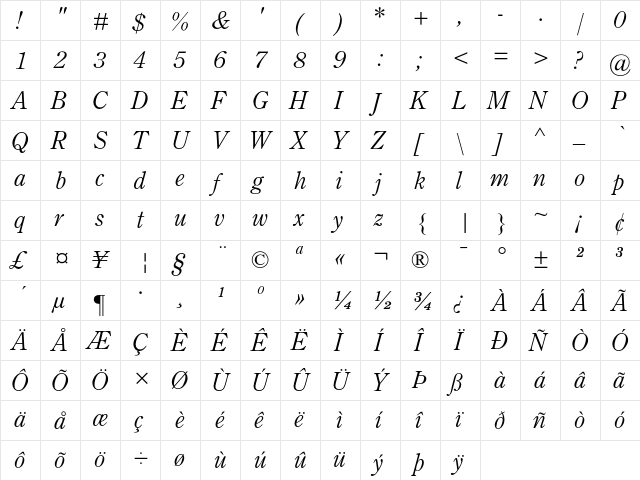
Century Old Style Italic
Design Context for Century Old Style Typeface
Century Old Style takes a measured approach to typography — its balanced proportions and neutral character make it a reliable workhorse for both digital and print work. The dynamic lean of this cut emphasises speed and emphasis in any layout.
Pro Tip: Try Century Old Style for annotation and caption copy alongside an upright companion — the contrast in angle creates a dynamic but ordered typographic system.